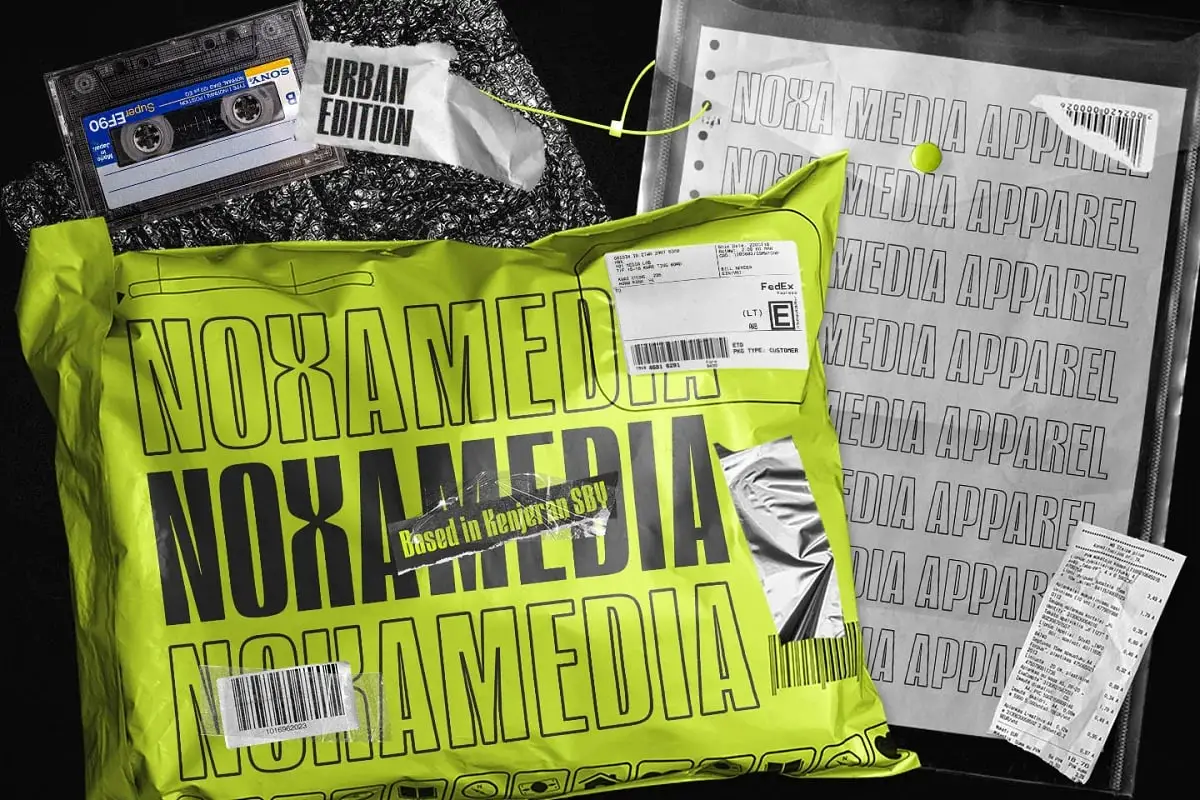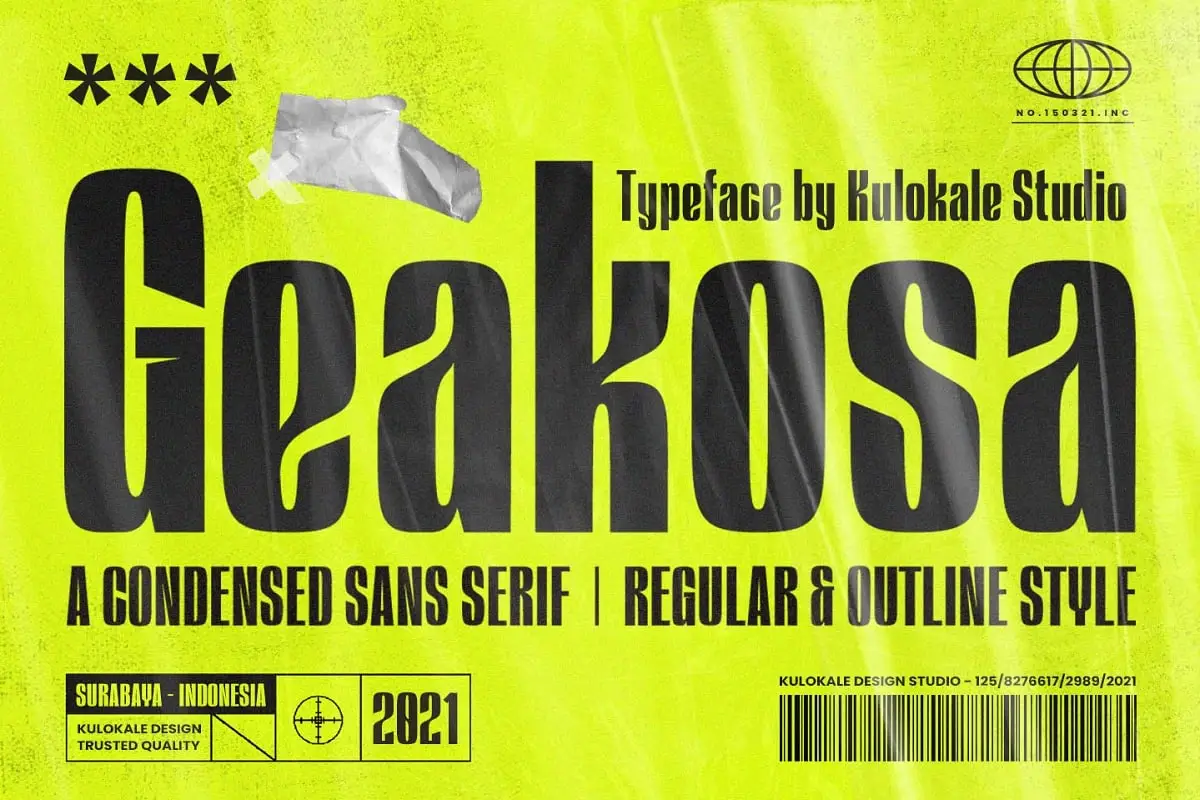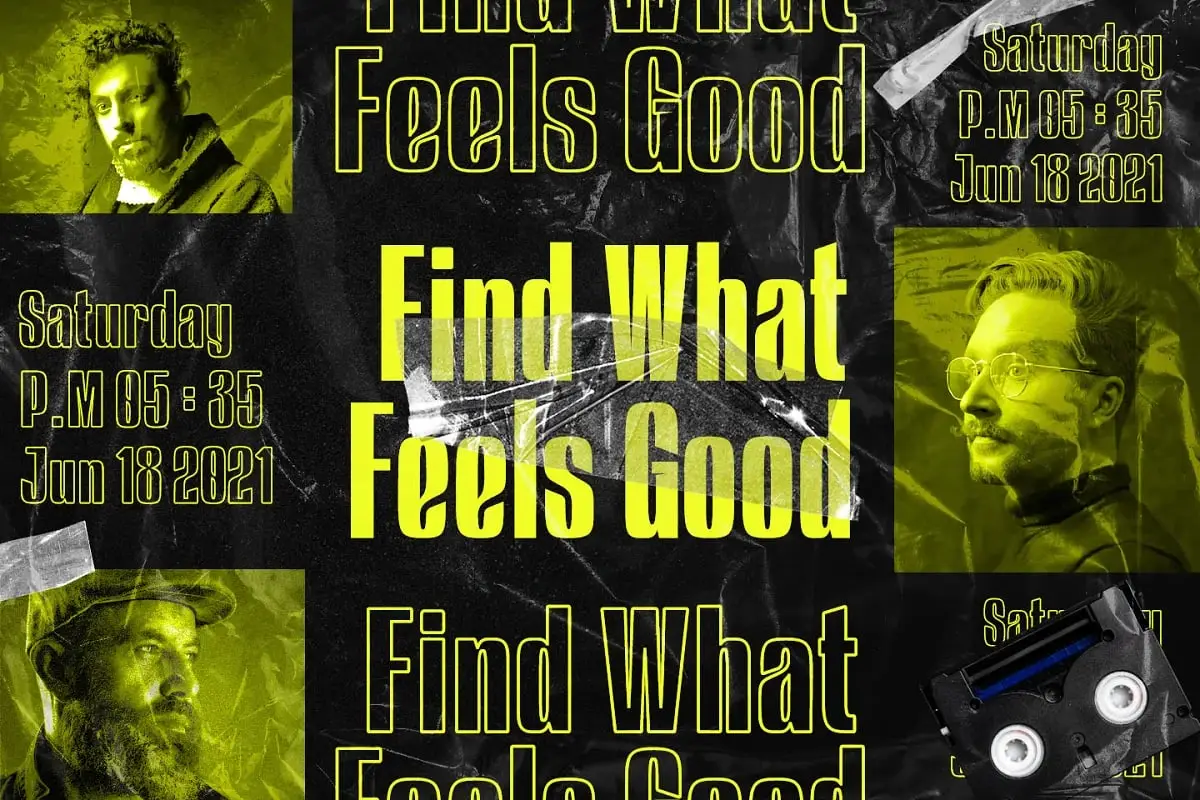
Kulokale-Geakosa Sans Serif Font
The Kulokale-Geakosa Sans Serif Font is a modern and versatile typeface designed for a wide range of applications. With its clean lines and contemporary aesthetic, this font is perfect for both digital and print projects.
• Multiple weights for flexibility in design
• Uppercase and lowercase letters, numbers, and symbols
• Clear legibility at various sizes
• Stylish and minimalistic design
• Great for web design and user interfaces
• Perfect for print projects like business cards and brochures